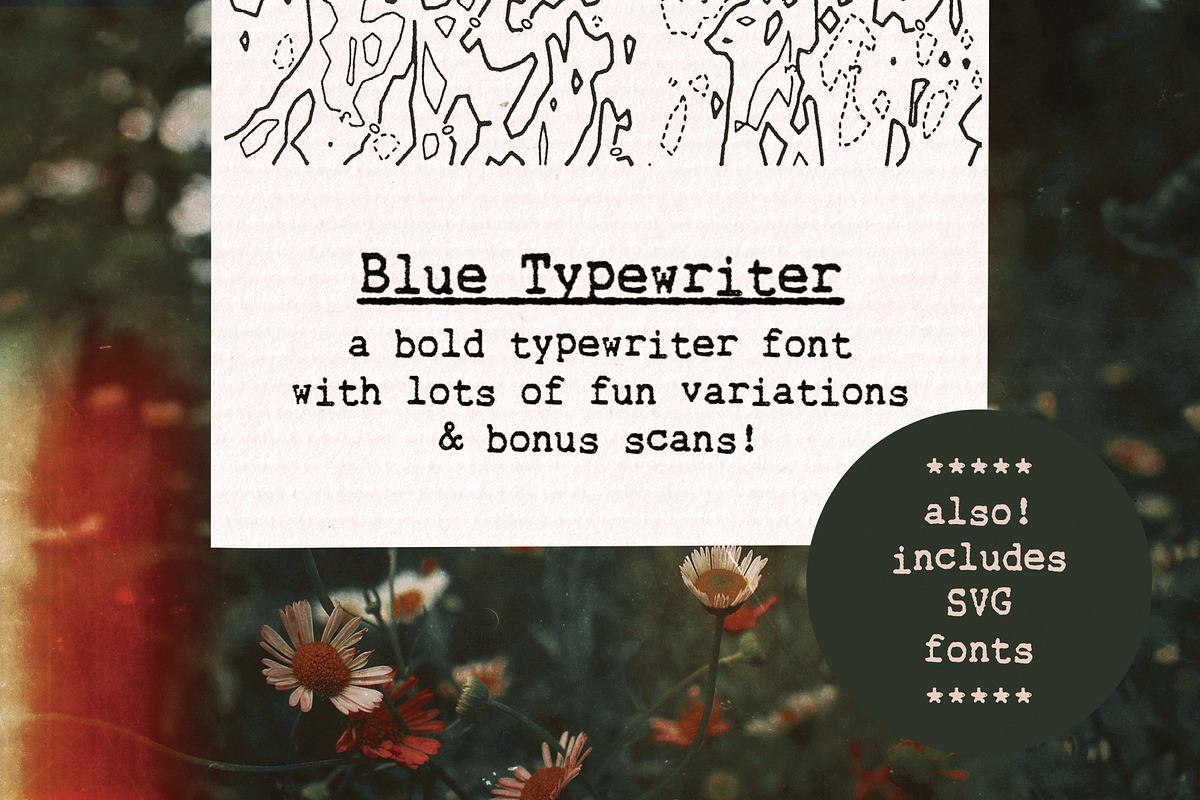
Blue Typewriter SVG Font Free Download is a unique and vintage-inspired typeface that brings the classic feel of typewriter text into your designs. With its bold and rough edges, this font is perfect for creating nostalgic, retro-inspired logos, posters, and more. The SVG version adds extra texture and depth, making it an ideal choice for designs that need a strong, authentic visual impact.